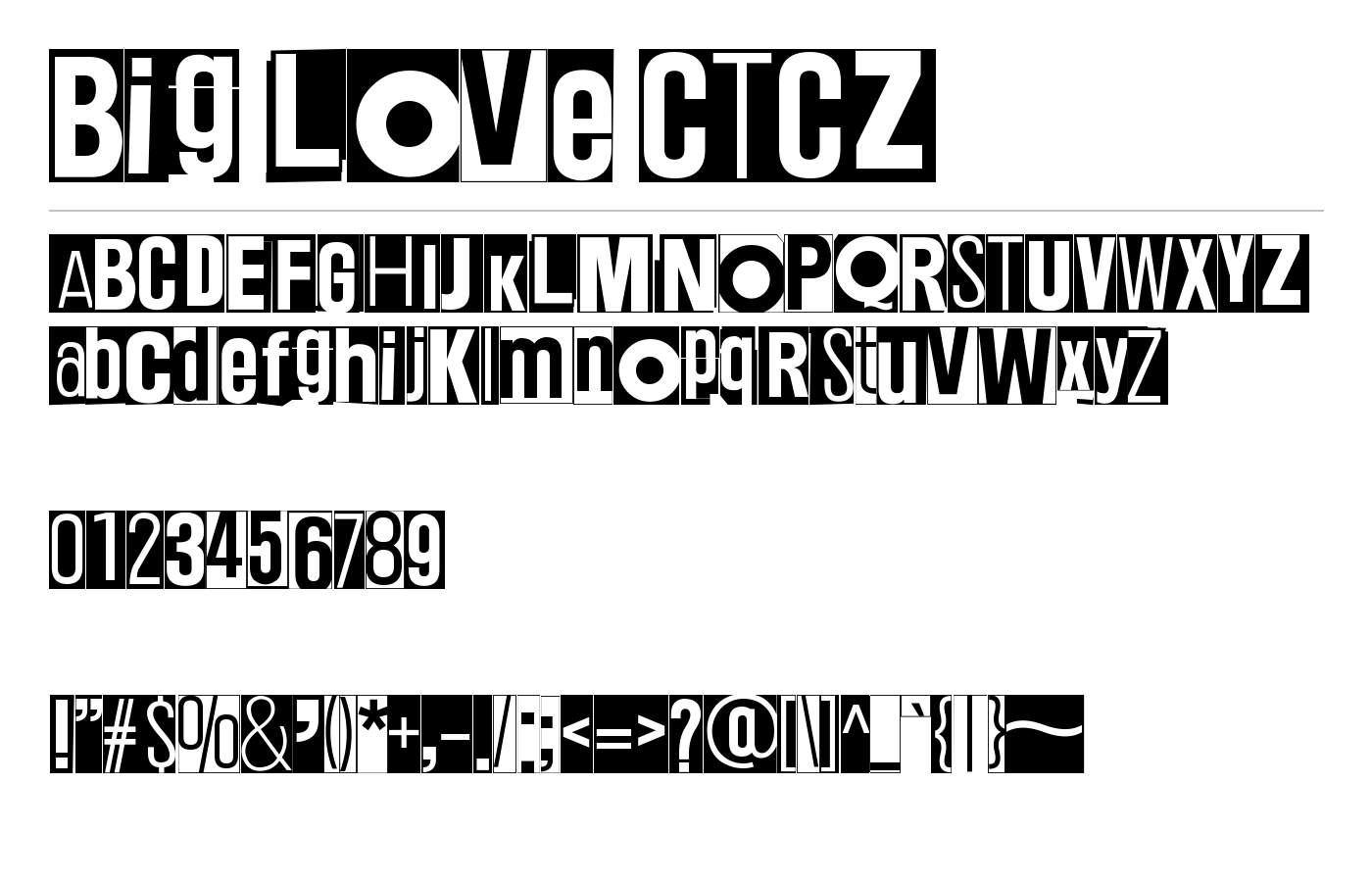
Big Love CTCZ is a bold and playful sans serif display font characterized by its high contrast and geometric shapes, where each letter alternates between black and white blocks, creating a striking visual rhythm. Its tall, condensed letterforms with a mix of single and double-story characters give it an energetic and contemporary vibe, making it perfect for eye-catching headlines, posters, and branding that seeks a modern yet quirky personality. This font works best in large sizes where its boldness and unique style can stand out and make a strong visual impact.
Big Love CTCZ Font
About Big Love CTCZ Font